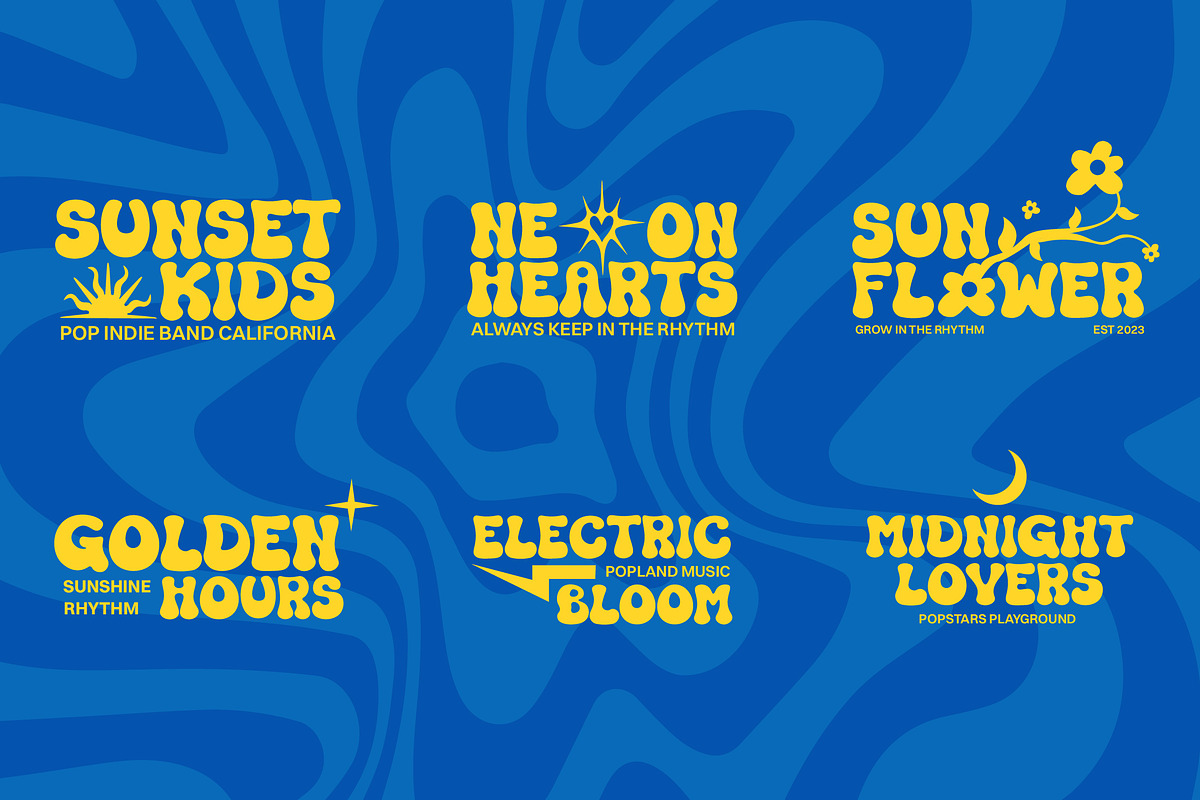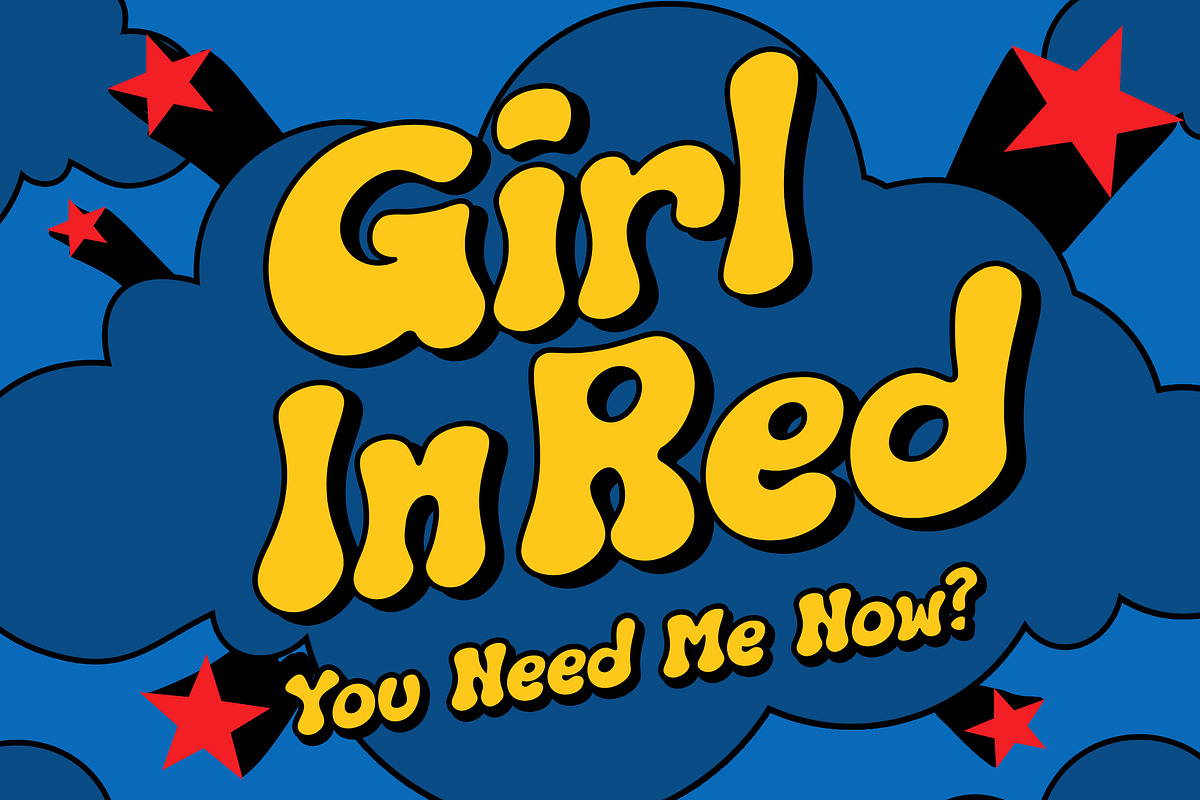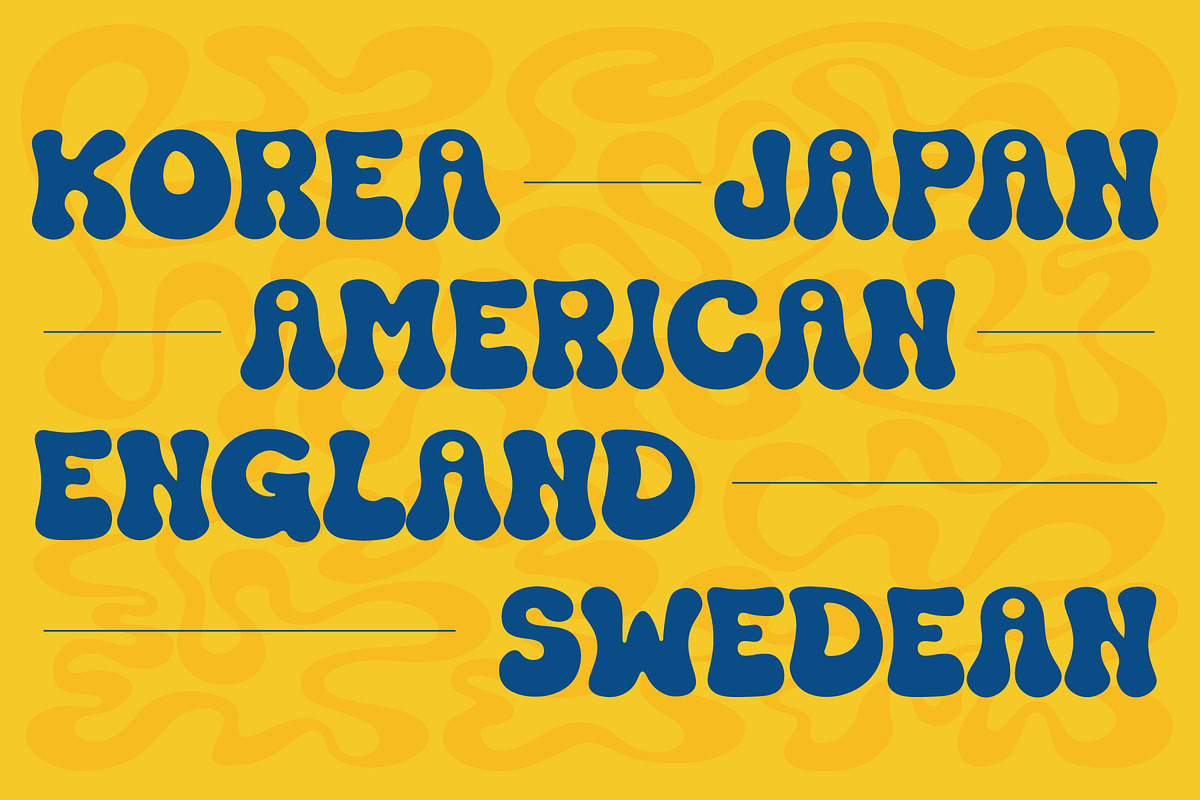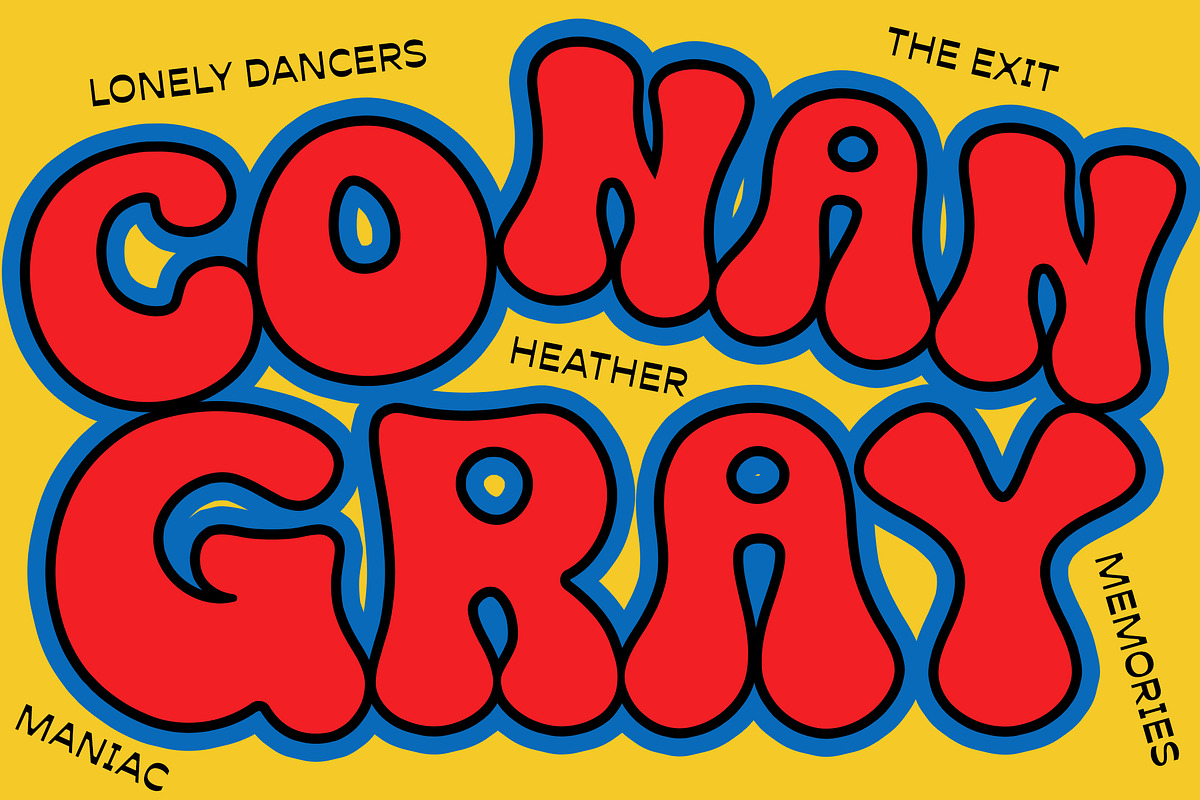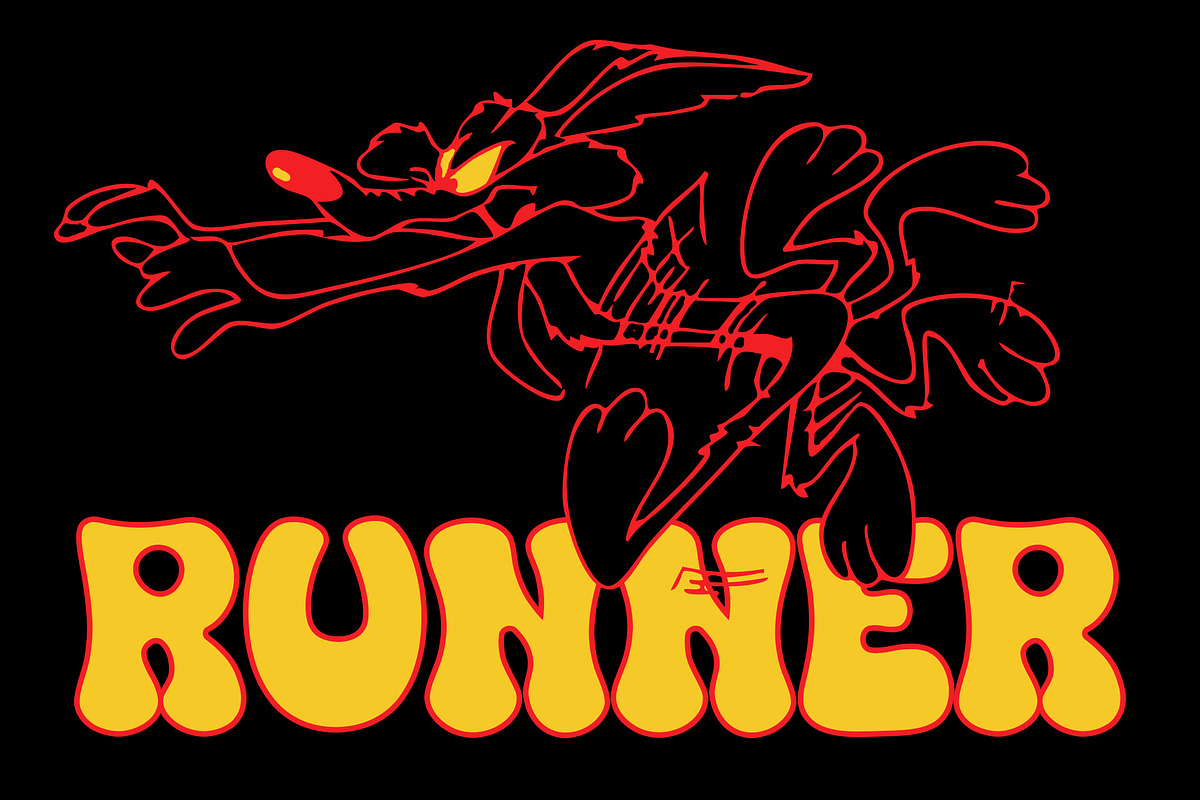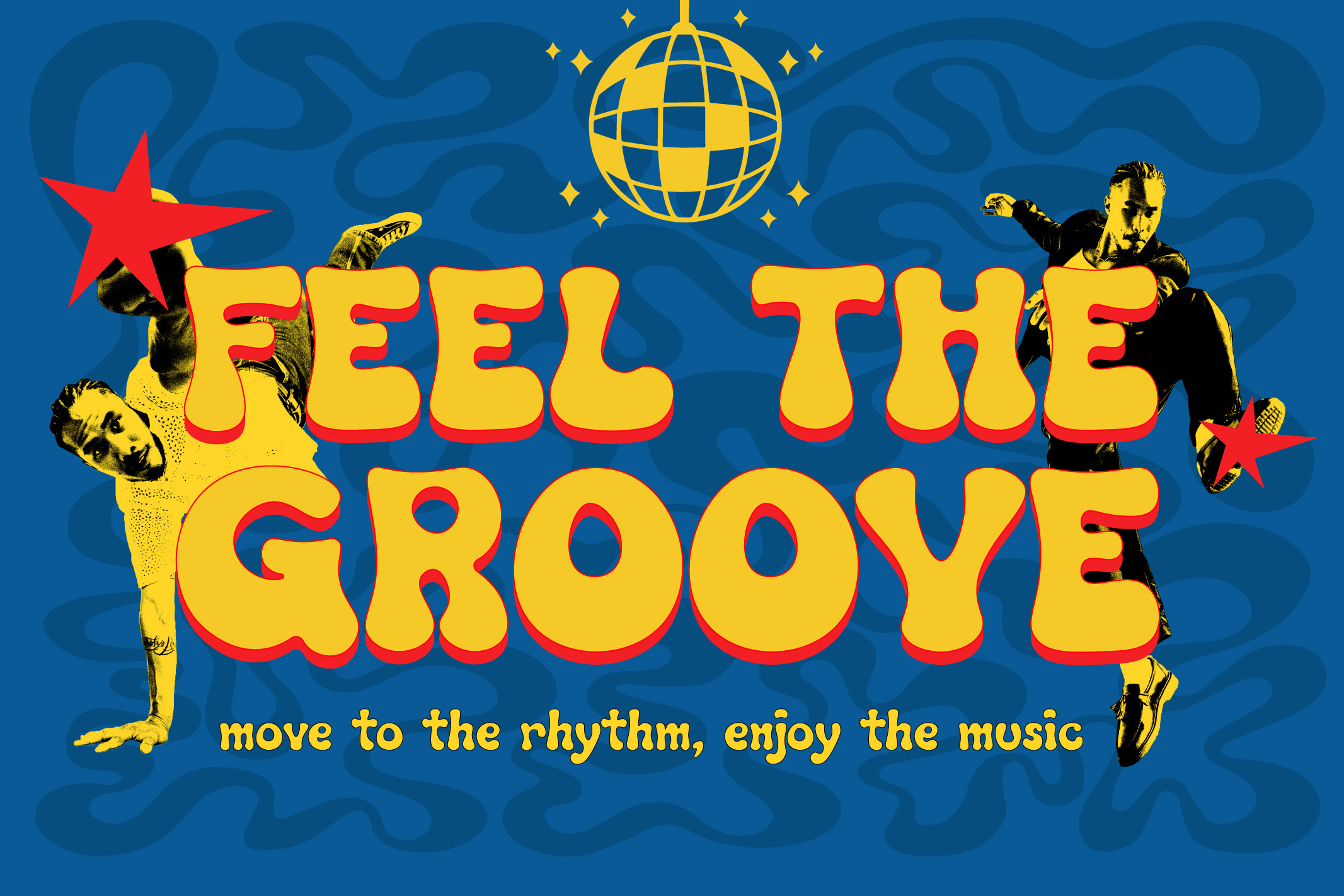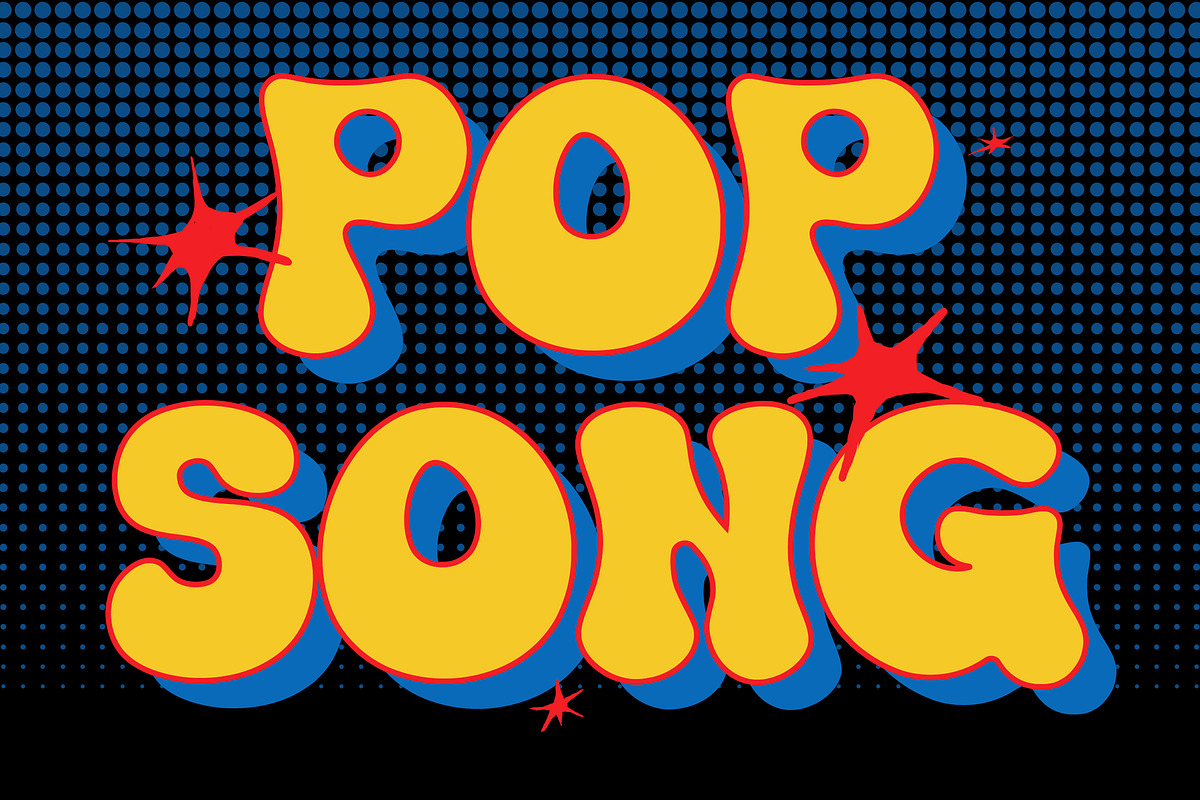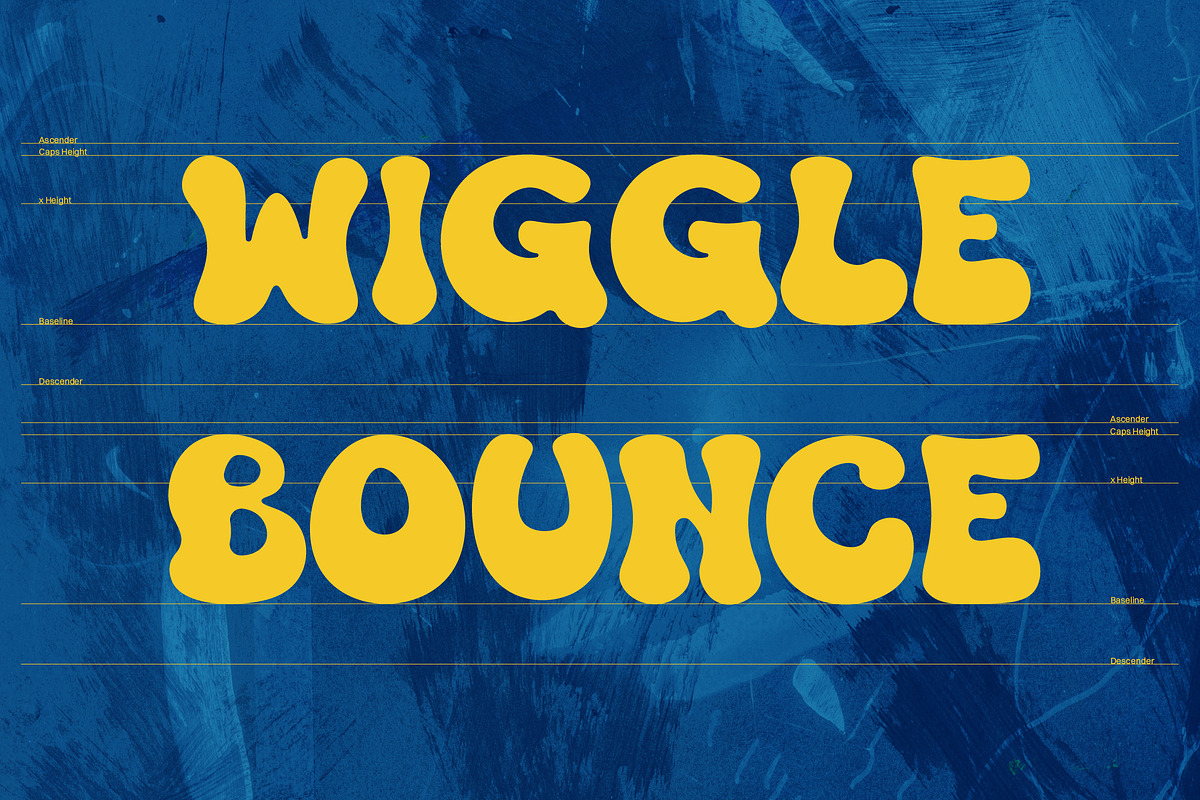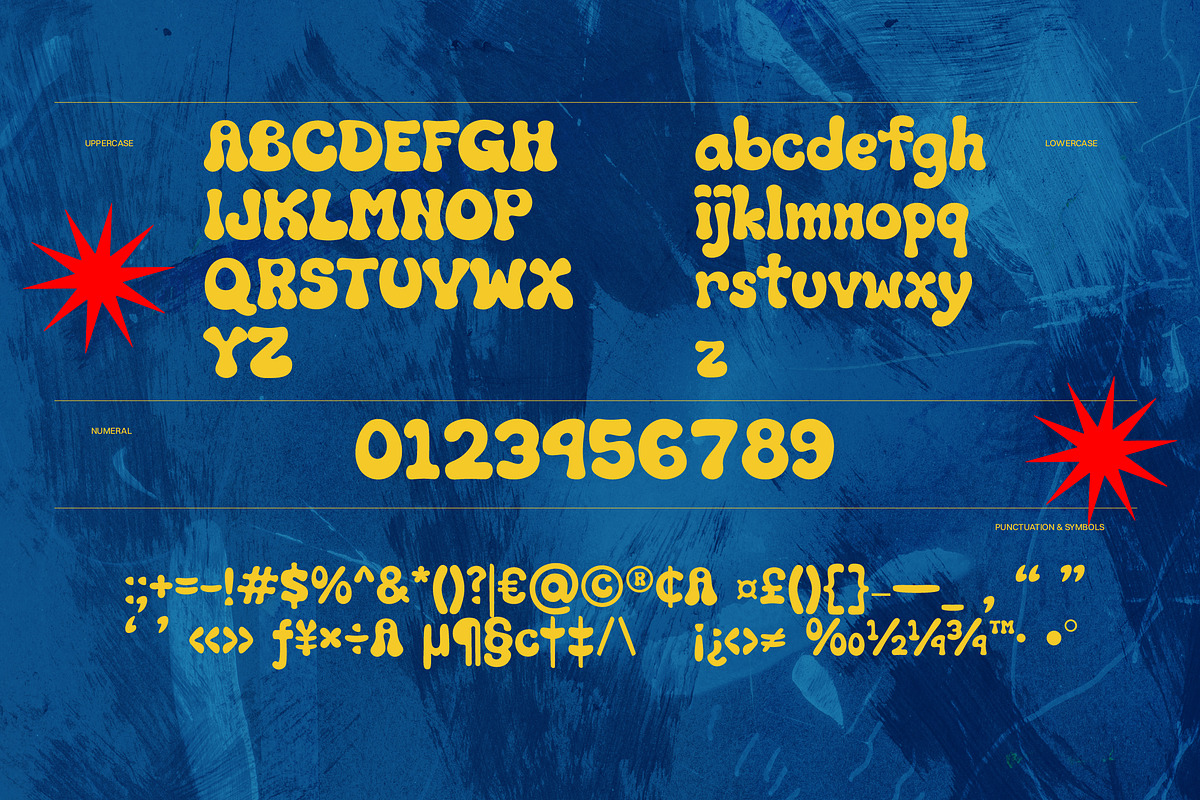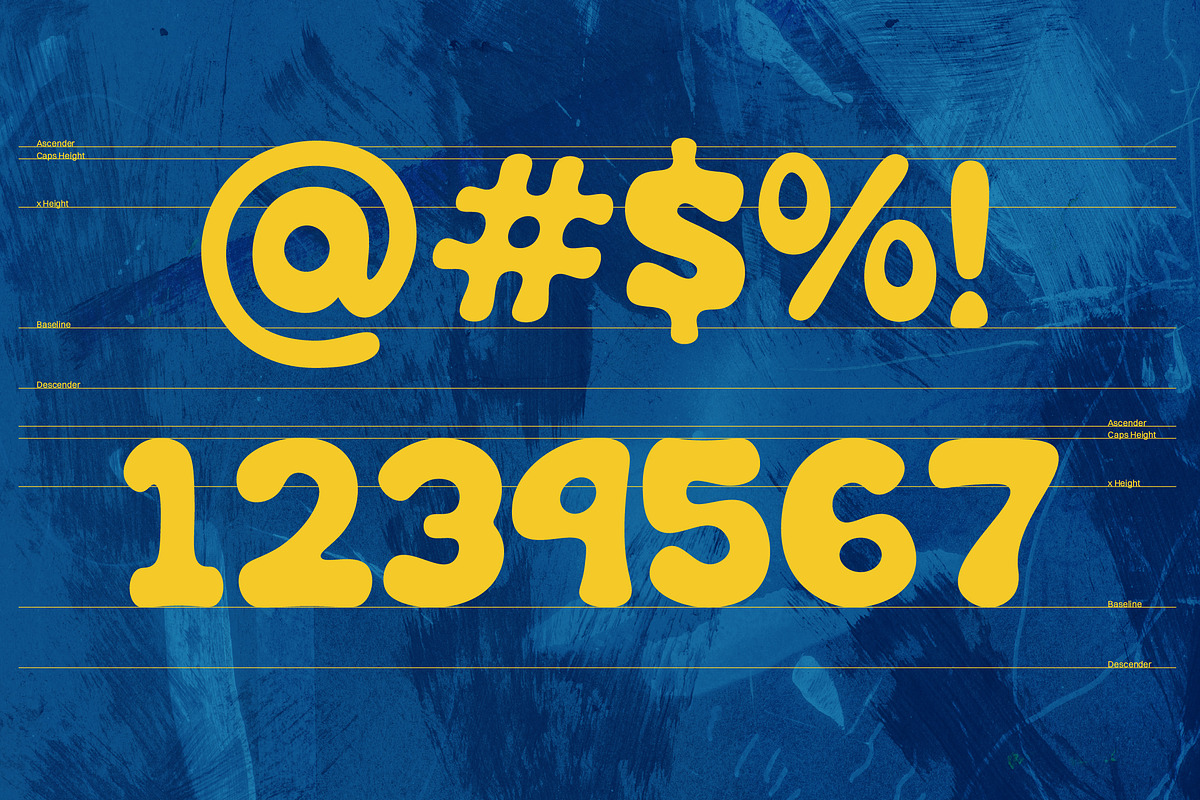
Groovelly - Funk Groovy Display Font
Groovelly is a playful, chubby, and delightfully organic display font inspired by the electric energy of 60s psychedelic pop and 70s groovy funk music. With its bold, rounded curves and zero sharp edges, this typeface brings an instant splash of sunshine, optimism, and retro nostalgia to any creative canvas.
The thick, melting letterforms capture the carefree, feel-good aesthetic of vintage music festivals, retro vinyl sleeves, and summer jam sessions.
Uppercase & lowercase letters
Numerals & essential punctuation included